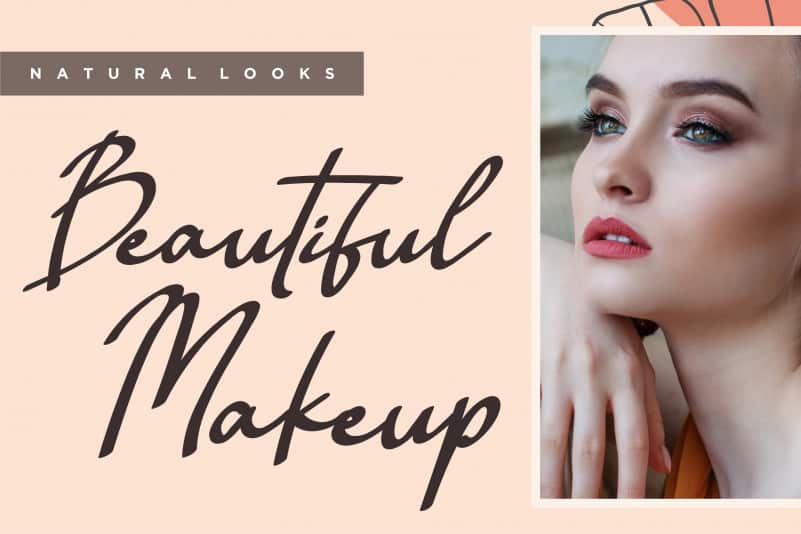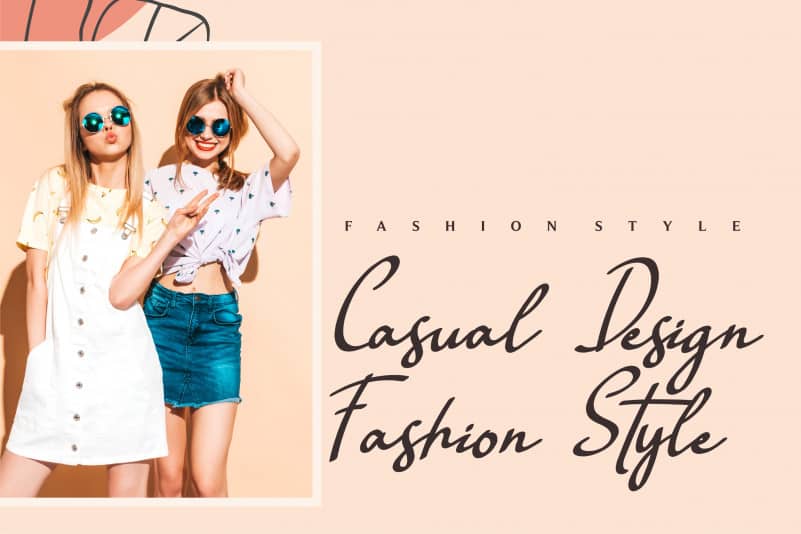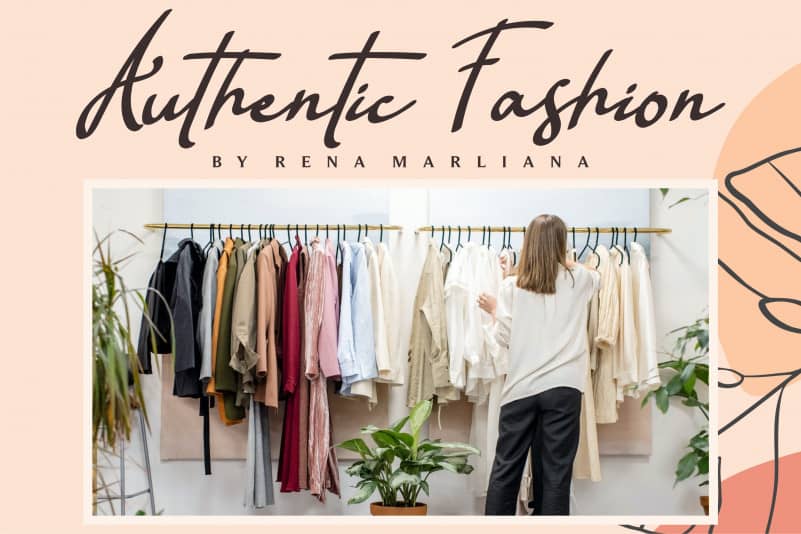
Rellata Script Font
Rellata Script Font is a romantic calligraphy font, suitable for any projects such as: logos, branding projects, quotes, posters, shopping bags, t-shirts, book covers, name card, invitation cards, photography, watermark, special events, and all your other lovely projects that need a beautiful calligraphy taste.